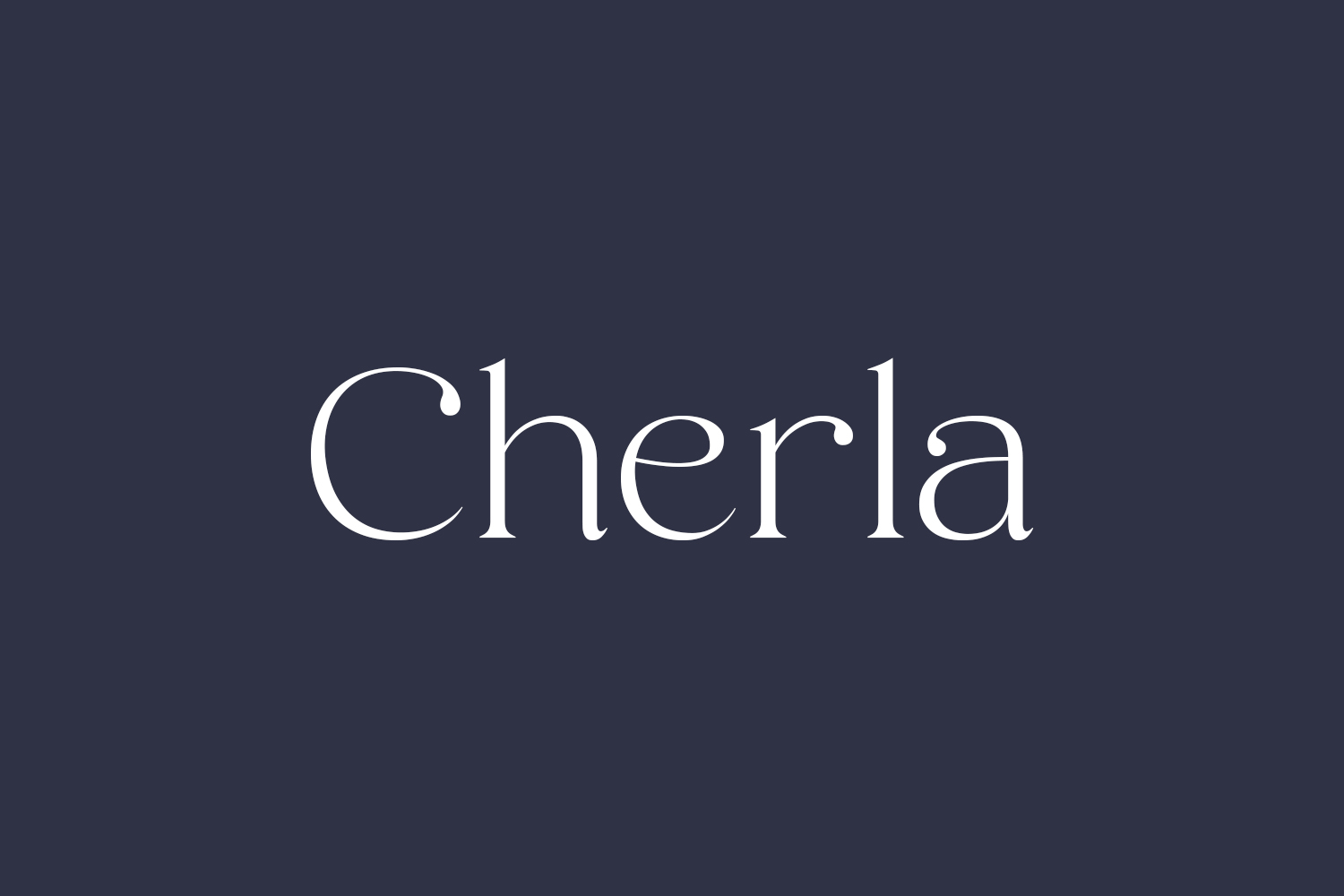
Cherla Free Font is a stylish serif typeface, imbued with a captivating and distinctive charm. It comes equipped with an array of alternative characters to enhance its aesthetic appeal, making it a fitting choice for crafting compelling logo designs and branding solutions. Cherla Free Font is a demo and free for personal use only. Please purchase the full version for commercial use.